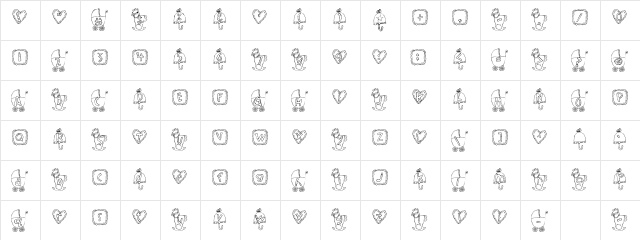
LDJ Baby Time Regular Font Preview
LDJ Baby Time Regular
Design Context for LDJ Baby Time Typeface
LDJ Baby Time is a composed and adaptable typeface that performs quietly and consistently across a wide range of design contexts.